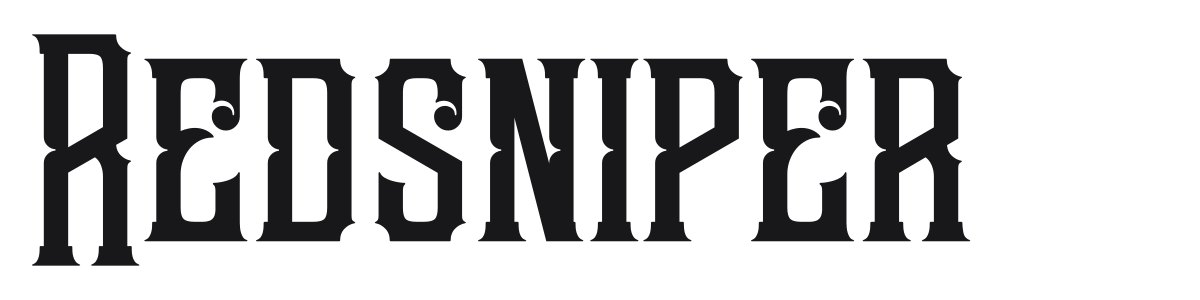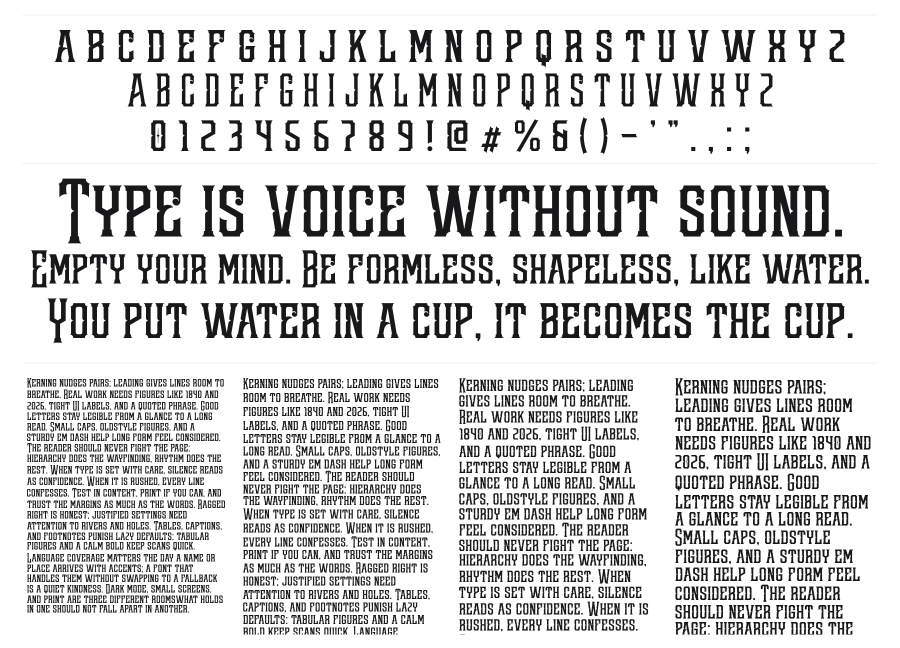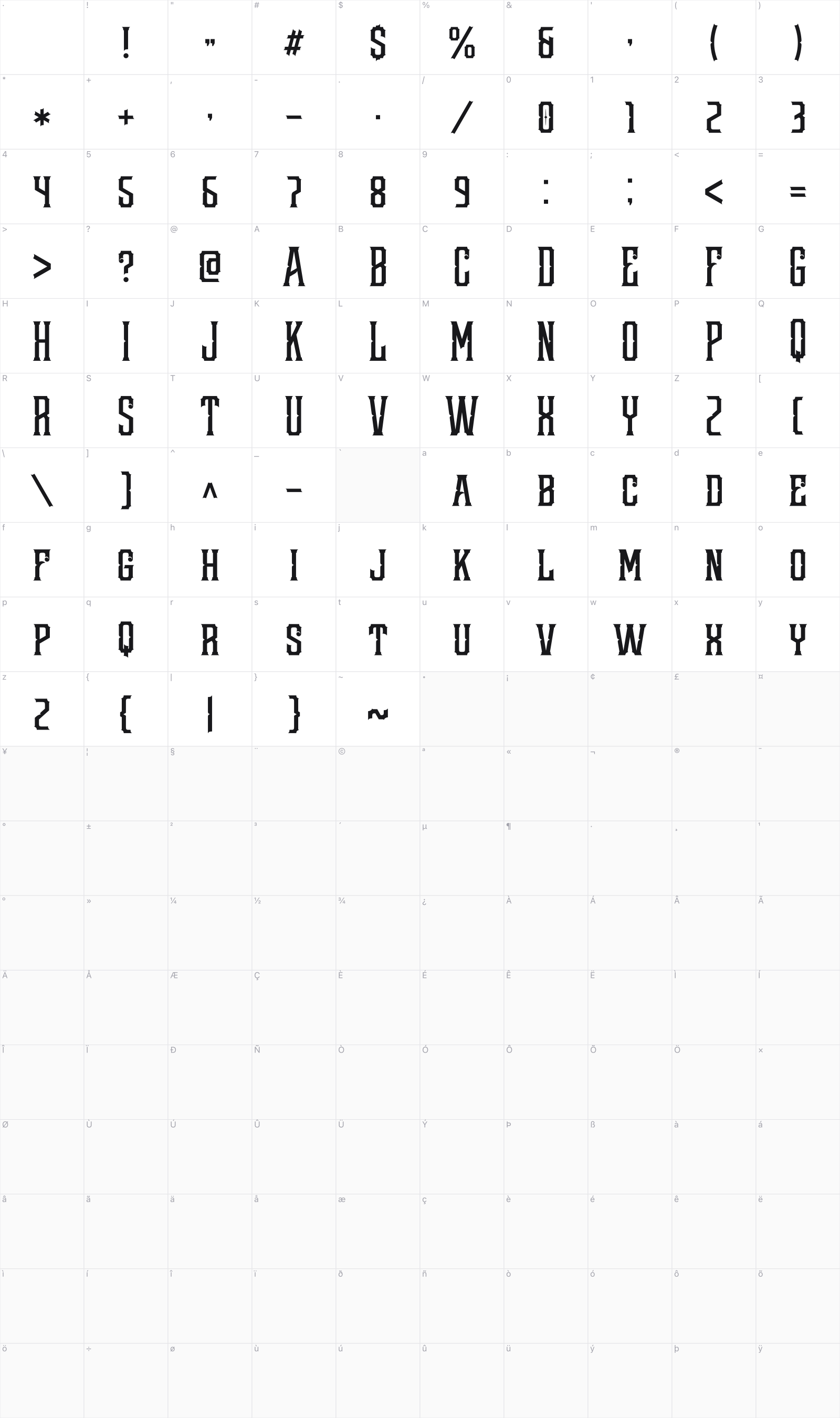
Redsniper
Redsniper is a condensed Victorian-inspired display serif with bold stems, hairline crossbars, and ornamental curled terminals. The tight vertical proportions and decorative slab serifs give it the feel of 19th-century wood-type poster lettering or saloon signage. Strong at large sizes for labels, logotypes, and poster headlines.